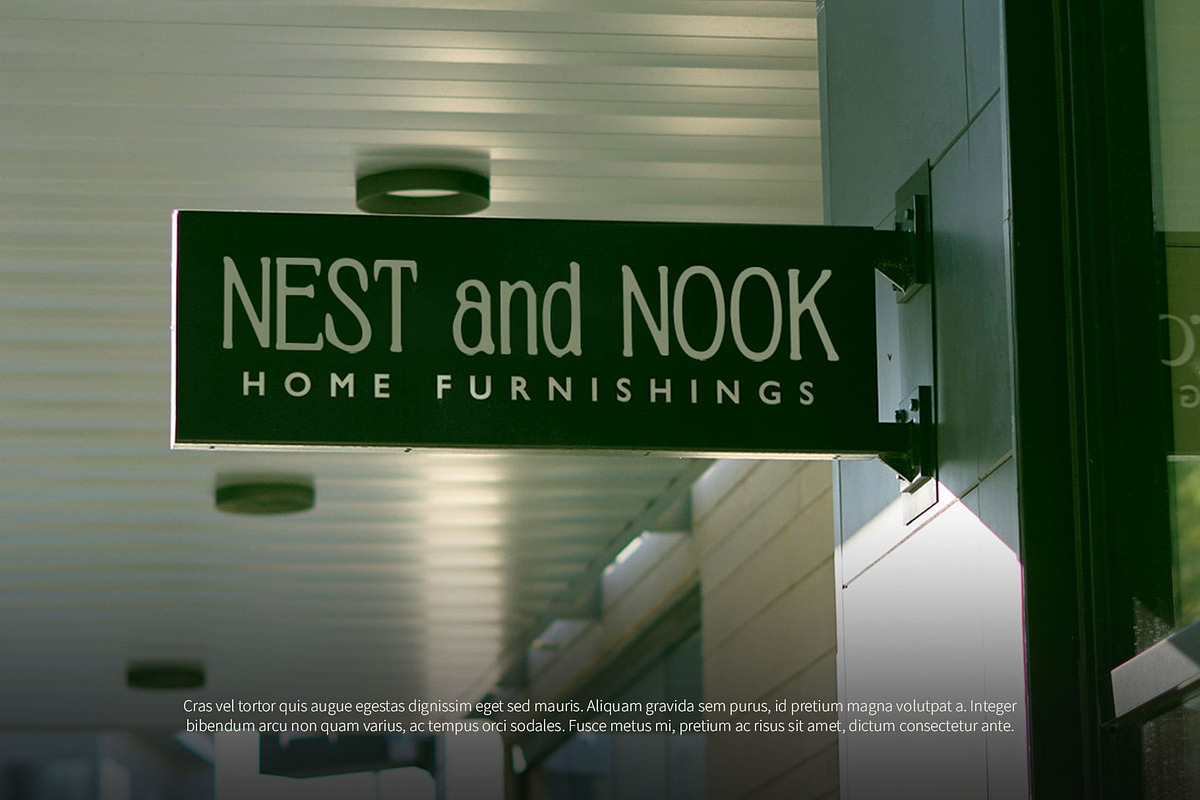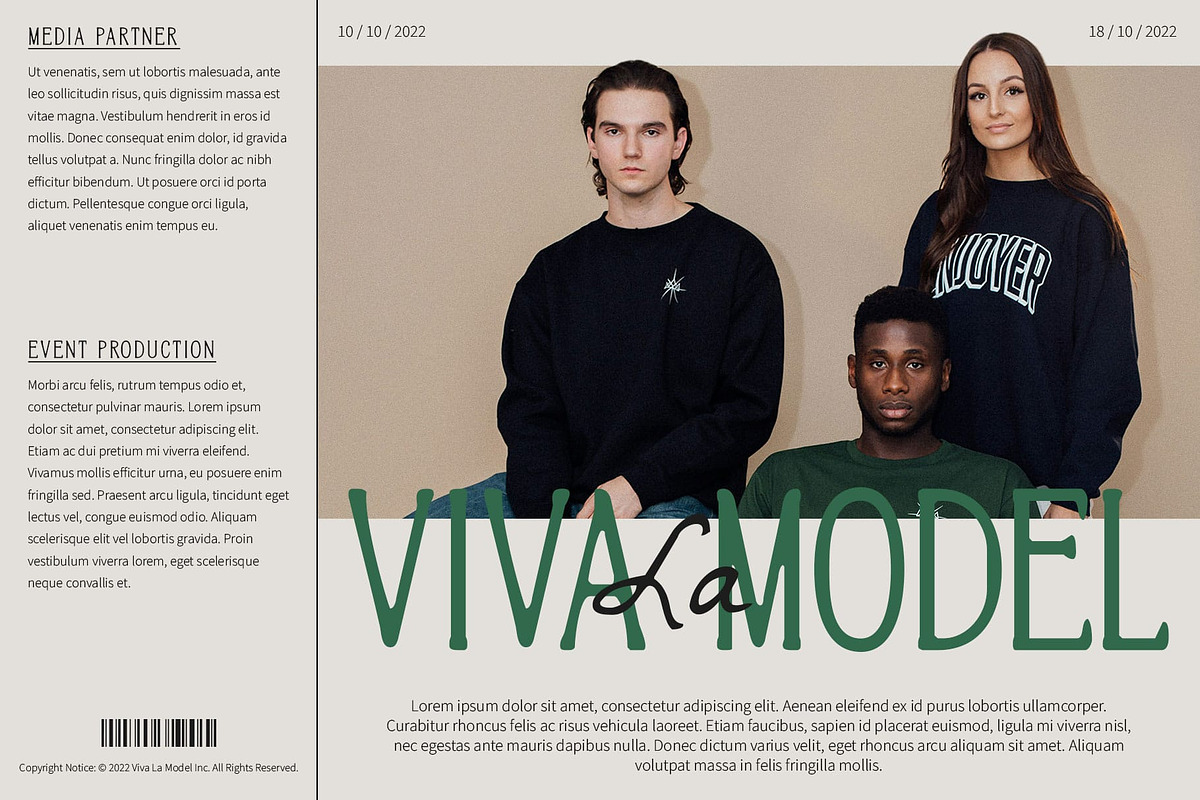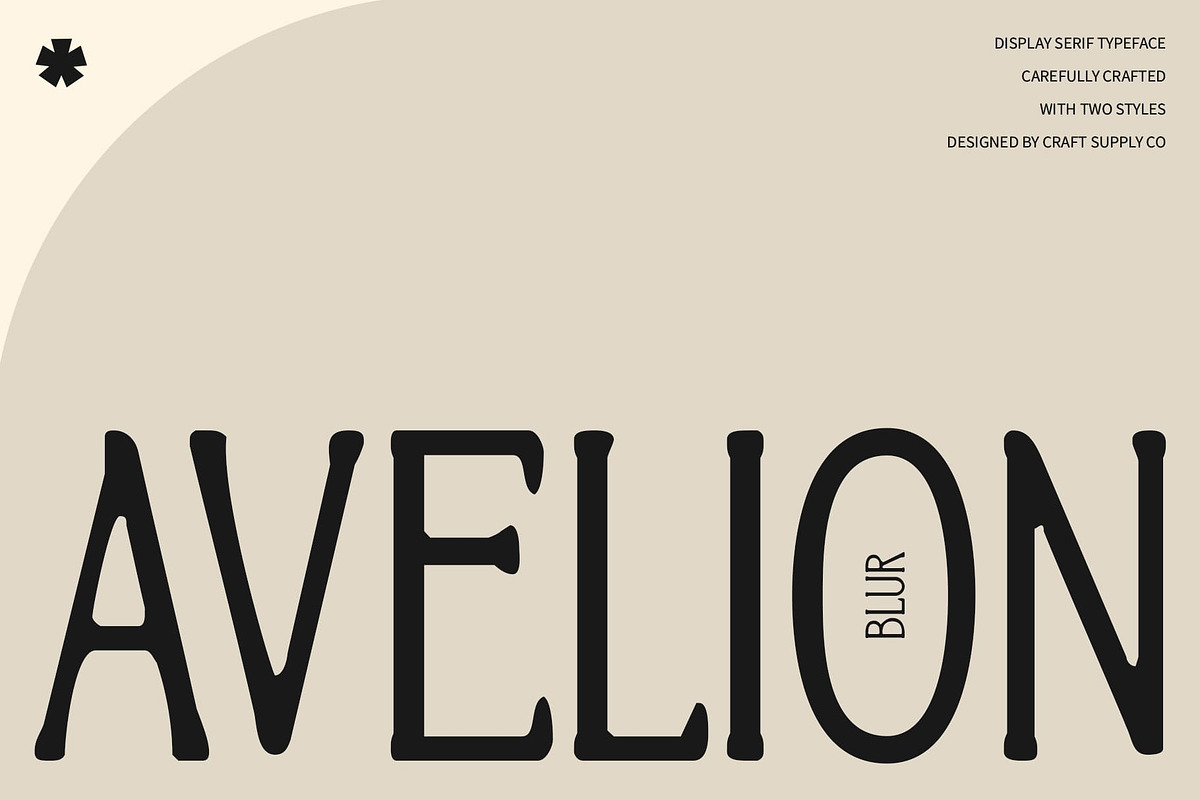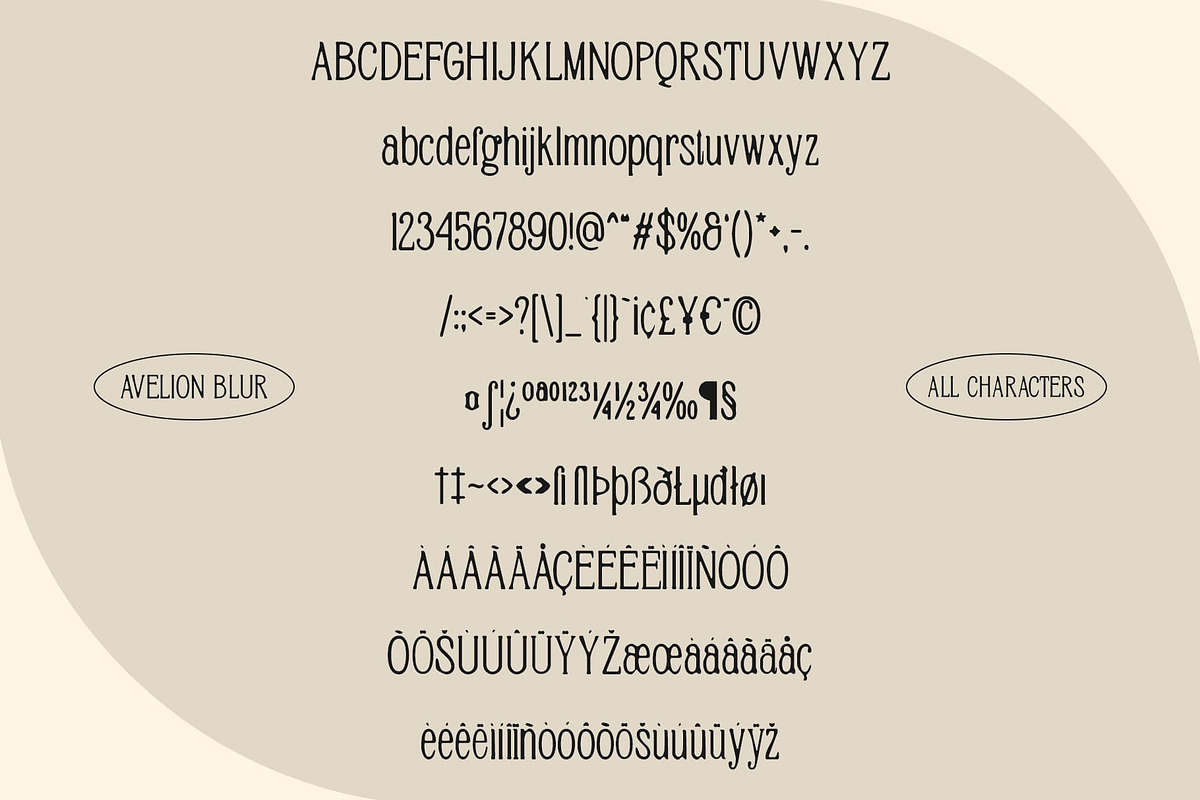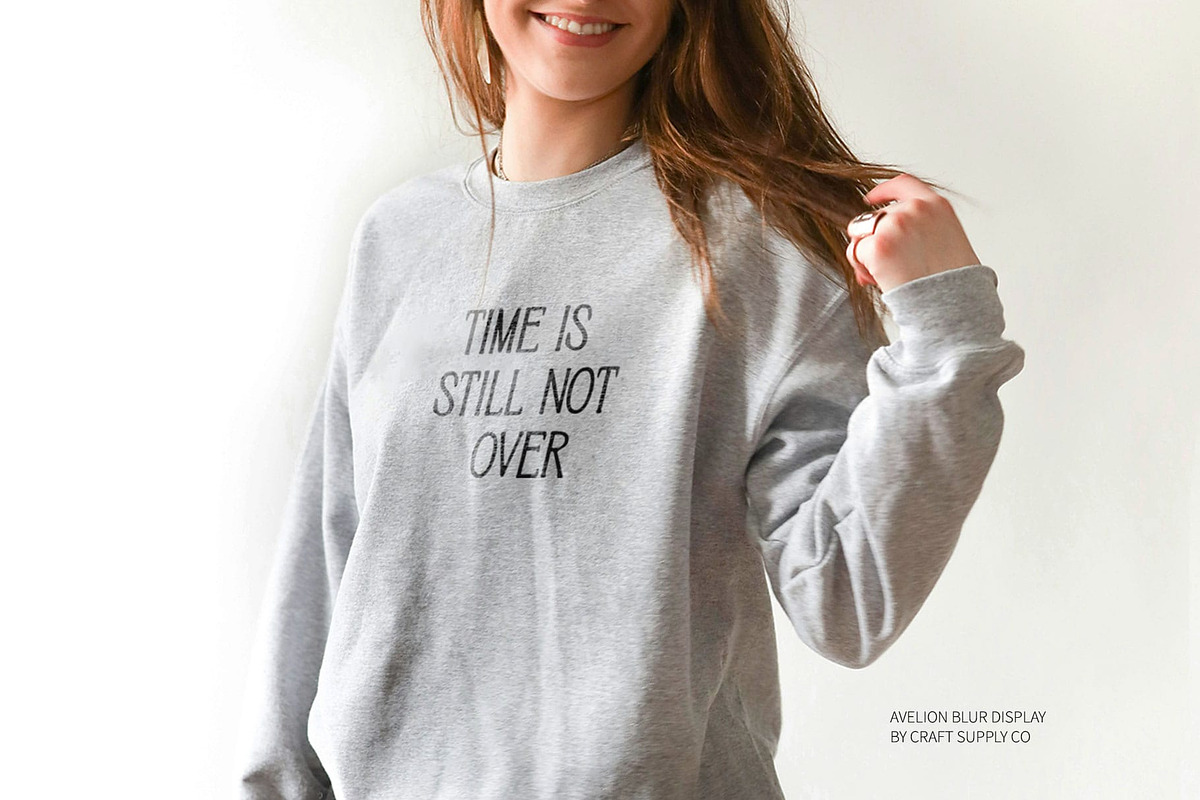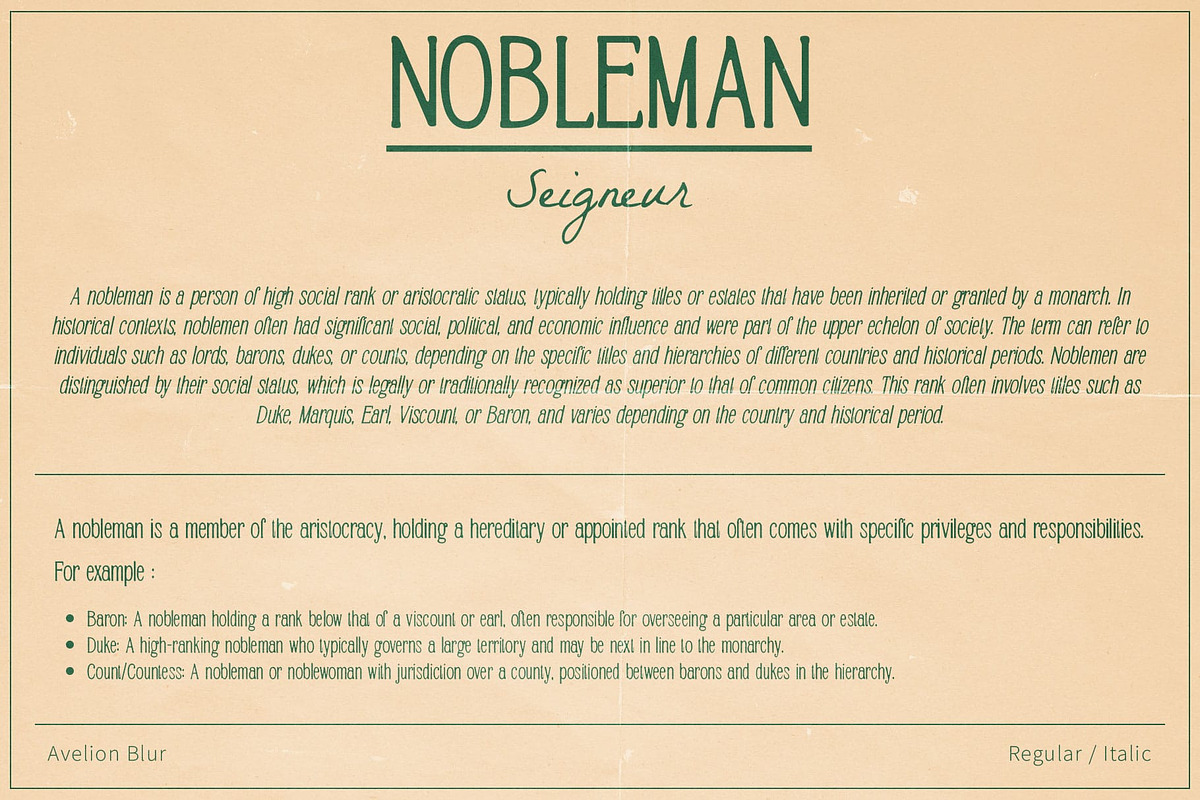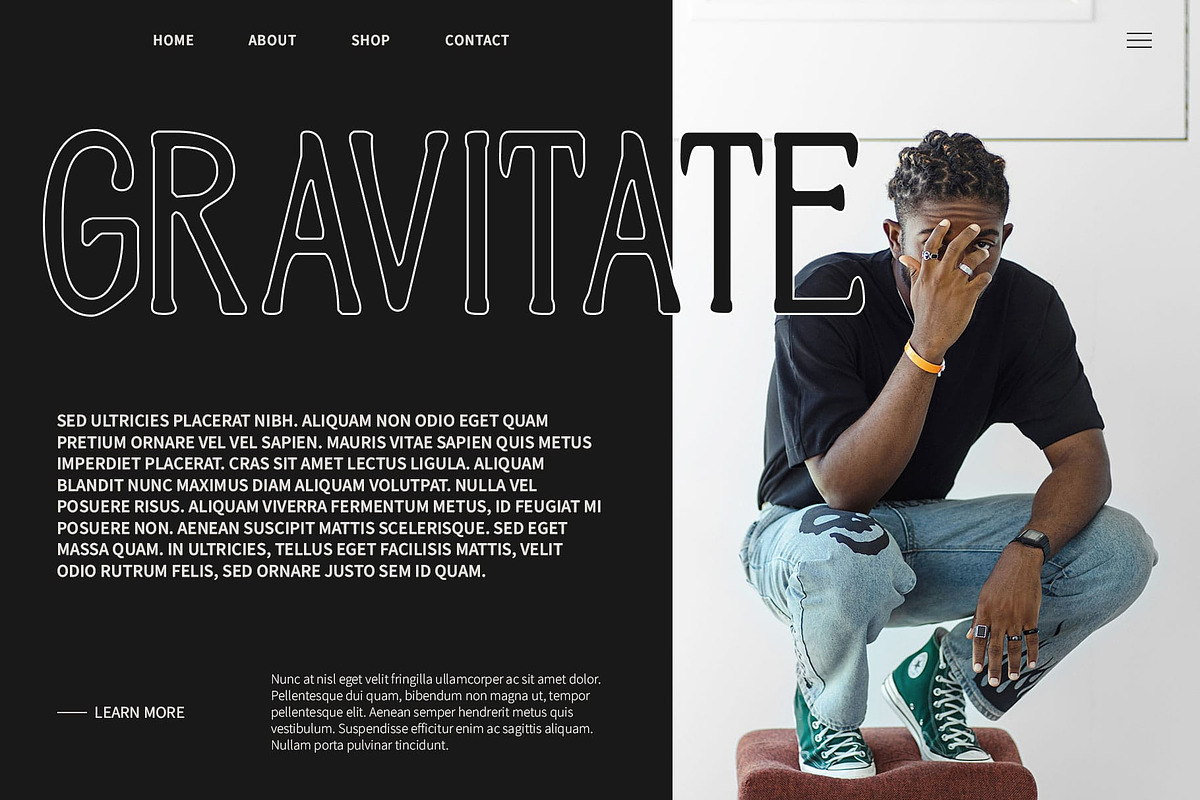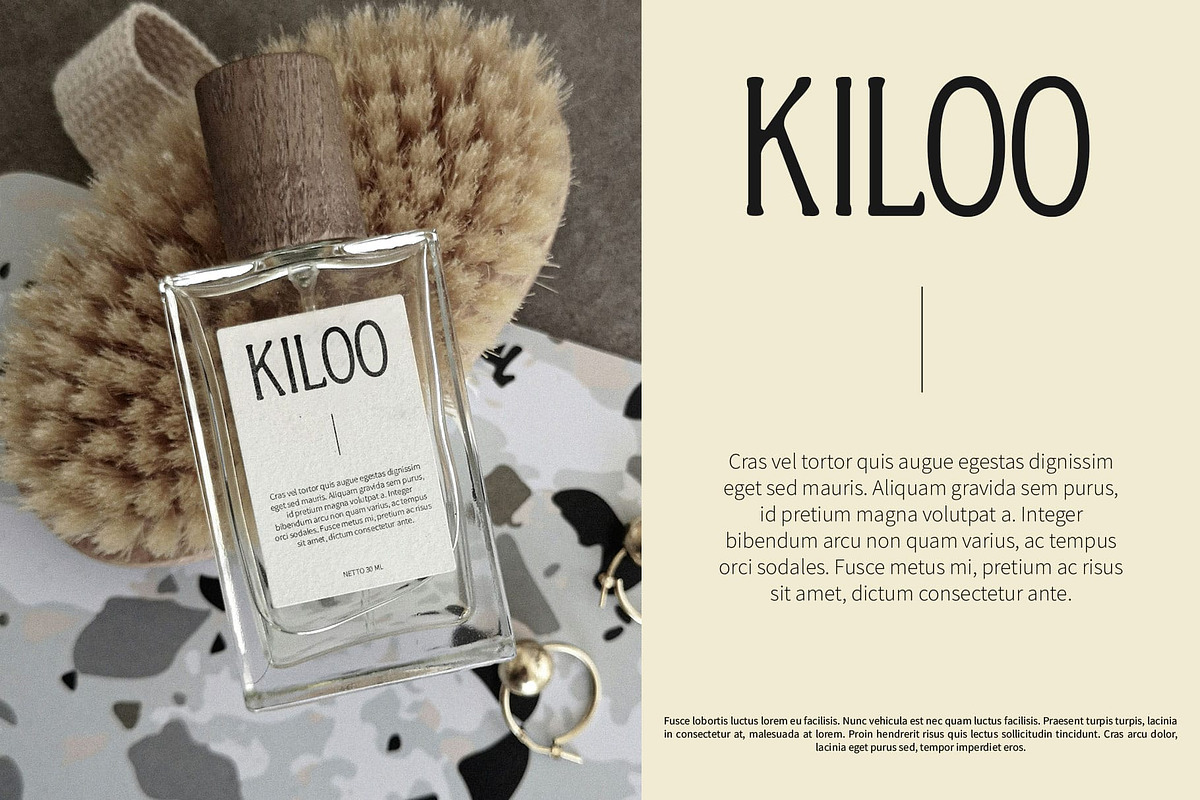
Avelion Blur
Avelion Blur Font: Classic Elegance with a Modern Twist
Modern Serif with a Blur Effect Avelion Blur is a modern serif font that elegantly marries classic serif design with a contemporary blur effect. The smooth, proportional serif lines provide a timeless and sophisticated look, while the unique blur effect introduces a fresh, modern touch. This combination creates a visually captivating and luxurious impression, ideal for a range of high-end design applications.
Smooth and Captivating Design With its smooth lines and balanced proportions, Avelion Blur maintains a sense of classic elegance, evoking a refined and polished aesthetic. The blur effect adds depth and dimension, making the text appear softer and more engaging. This artistic element enhances the font’s overall appearance, giving it a distinctive, eye-catching quality that stands out in any setting.
Perfect for Elegant and Exclusive Designs Avelion Blur is an excellent choice for designs that demand an exclusive and elegant feel. Whether for wedding invitations, luxury branding, sophisticated editorial layouts, or high-end promotional materials, this font delivers a touch of refinement and grandeur. Its unique blend of classic serif elegance and modern blur effect ensures that it adds a sophisticated, captivating presence to any project.